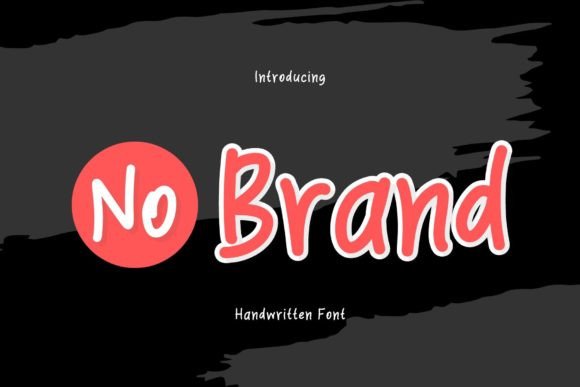
Prepare yourself to be captivated by the No Brand Font, a calligraphy masterpiece meticulously crafted by Brown Cupple Fonts, the masters of typographic artistry. Immerse yourself in the world of No Brand, a whimsical script font, a symphony of elegance and charm that will elevate your creative projects to unprecedented heights.
No Brand isn't just a font; it's an expression of your individuality, a reflection of your unique style. Its playful and authentic nature invites you to infuse your designs with a touch of lightheartedness and genuine charm. Whether you're composing heartfelt blog posts, creating logos that speak volumes, or crafting branding materials that leave a lasting impression, No Brand is your trusted companion, ready to transform your vision into a reality.
Step into a realm of endless possibilities with No Brand. Design captivating ads that demand attention, craft invitations that exude warmth and elegance, create greeting cards that touch hearts, or plan your life in style with No Brand-infused planners. Preserve your cherished memories in beautifully crafted photo albums, decorate your space with personalized ornaments, and let your imagination run wild as you explore a world of creative opportunities.
With No Brand, the ordinary becomes extraordinary. Add it to your design arsenal and witness the transformation. Experience the joy of creating designs that captivate, designs that resonate, designs that leave an indelible mark. Embrace the magic of No Brand and unlock the boundless potential within you.